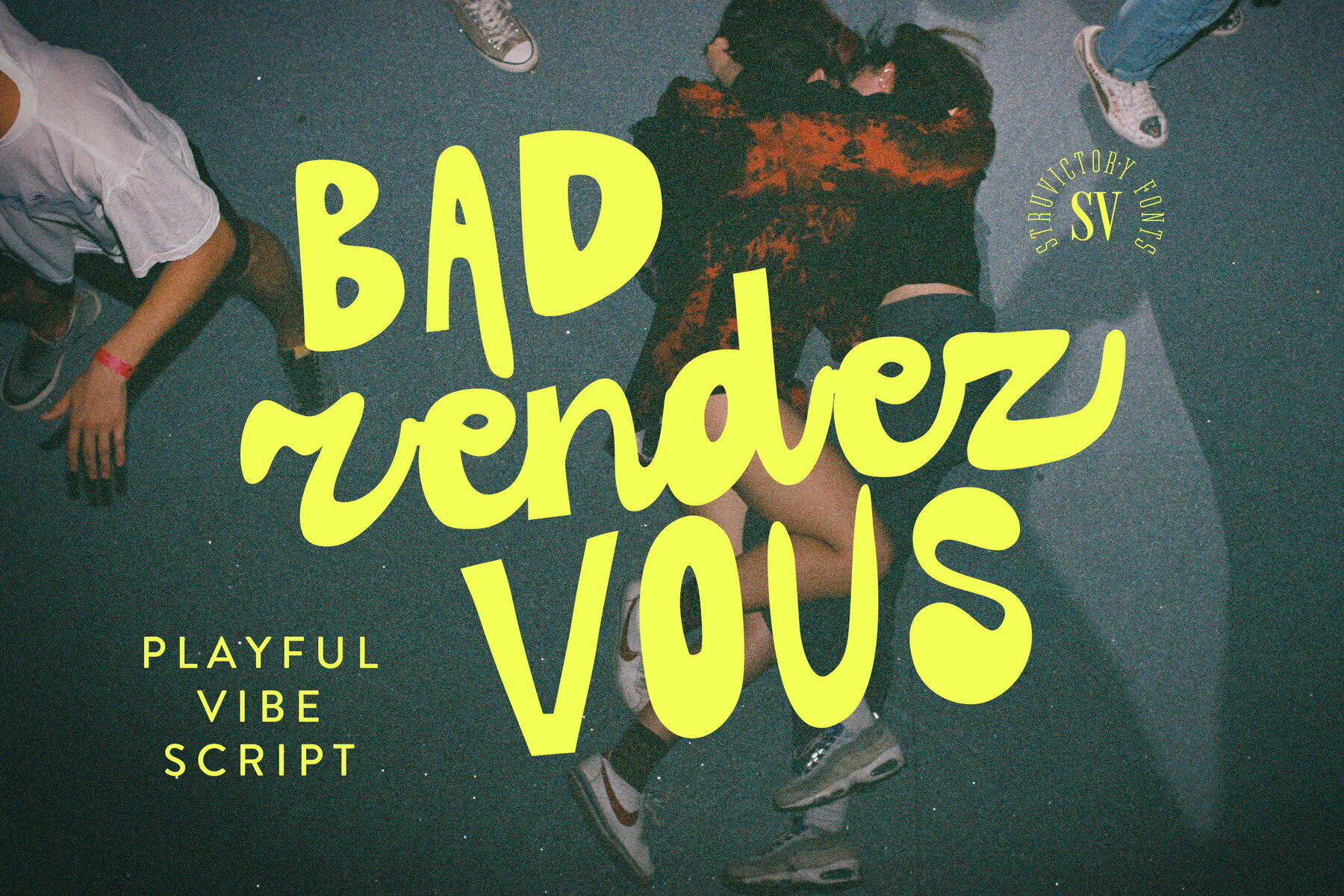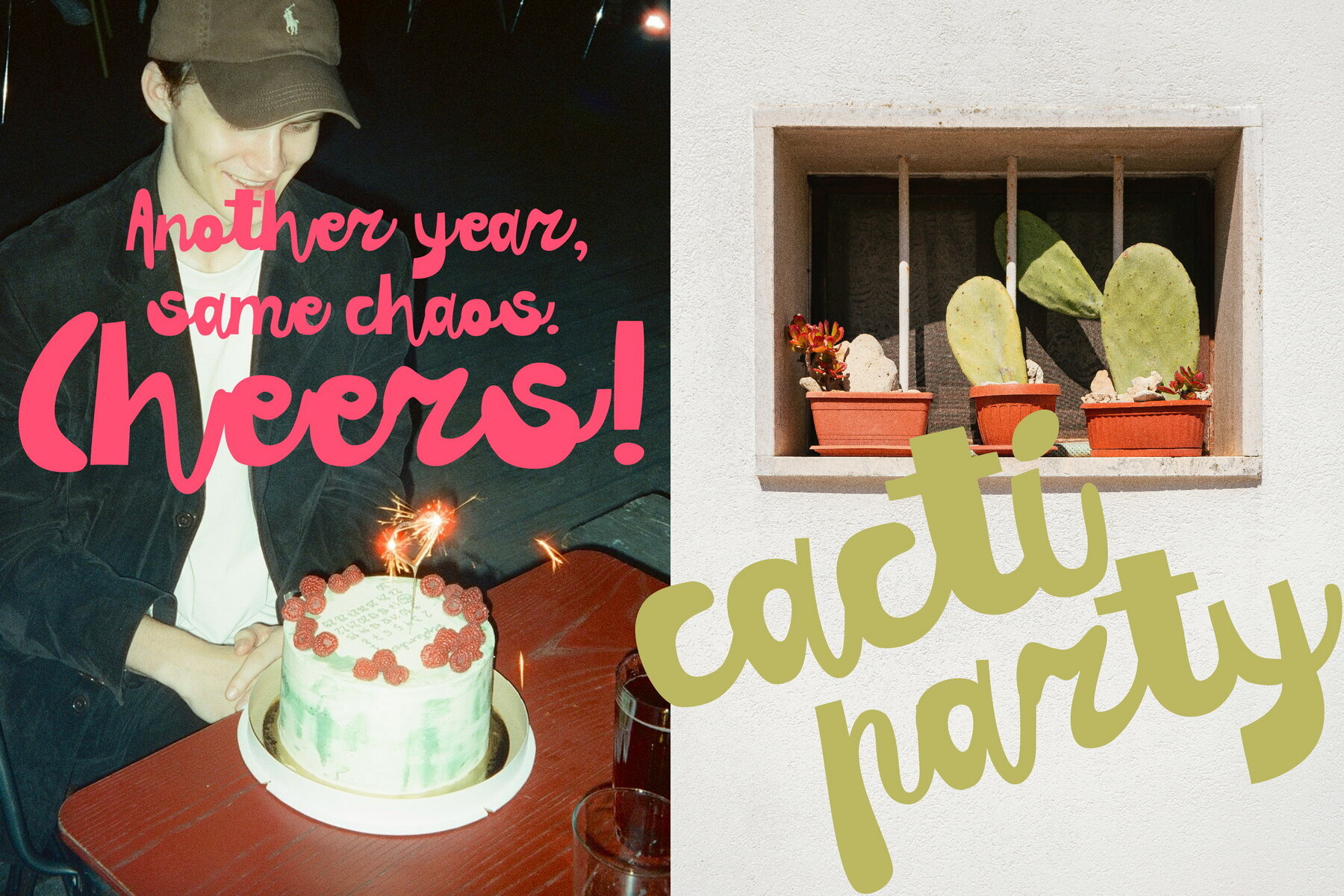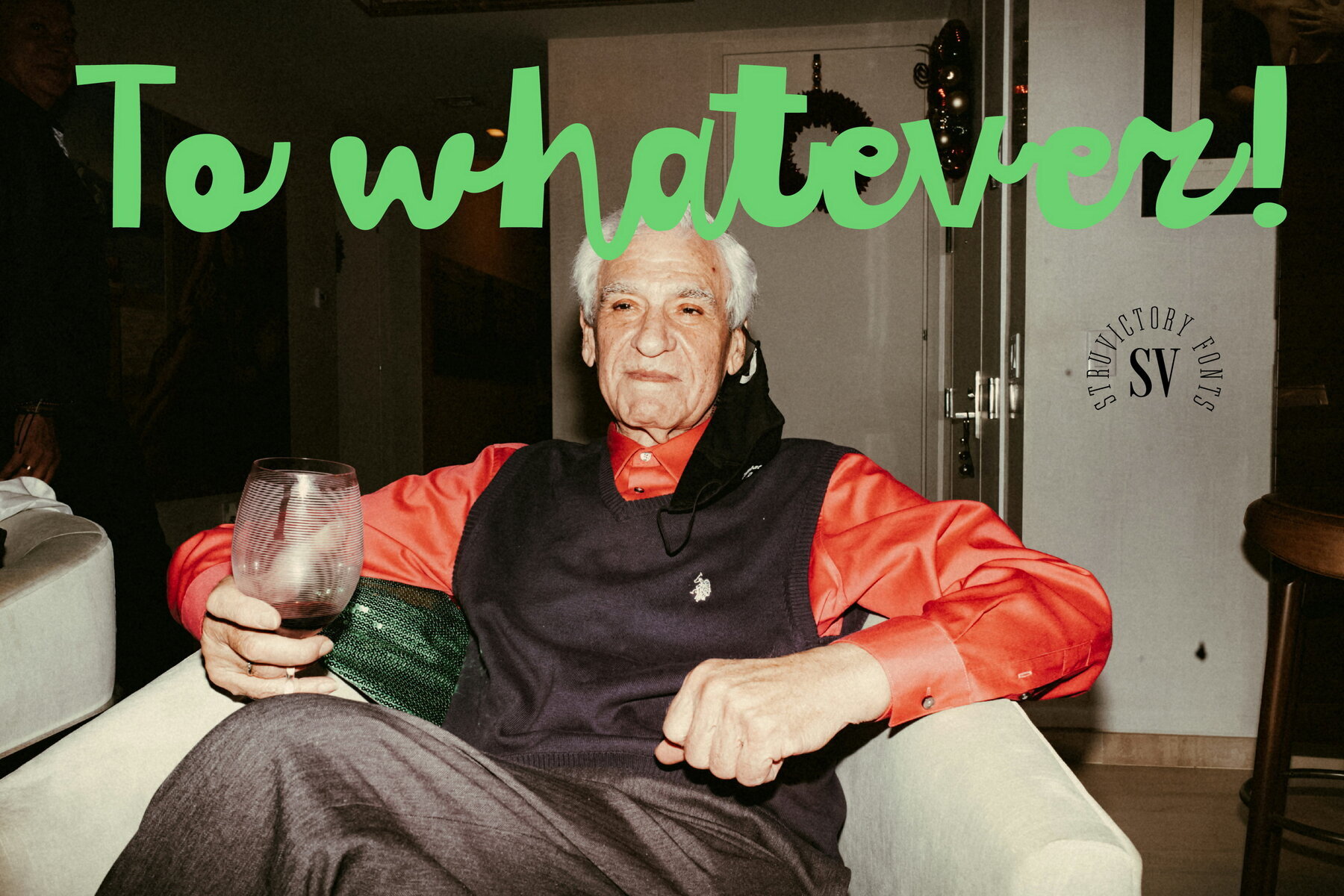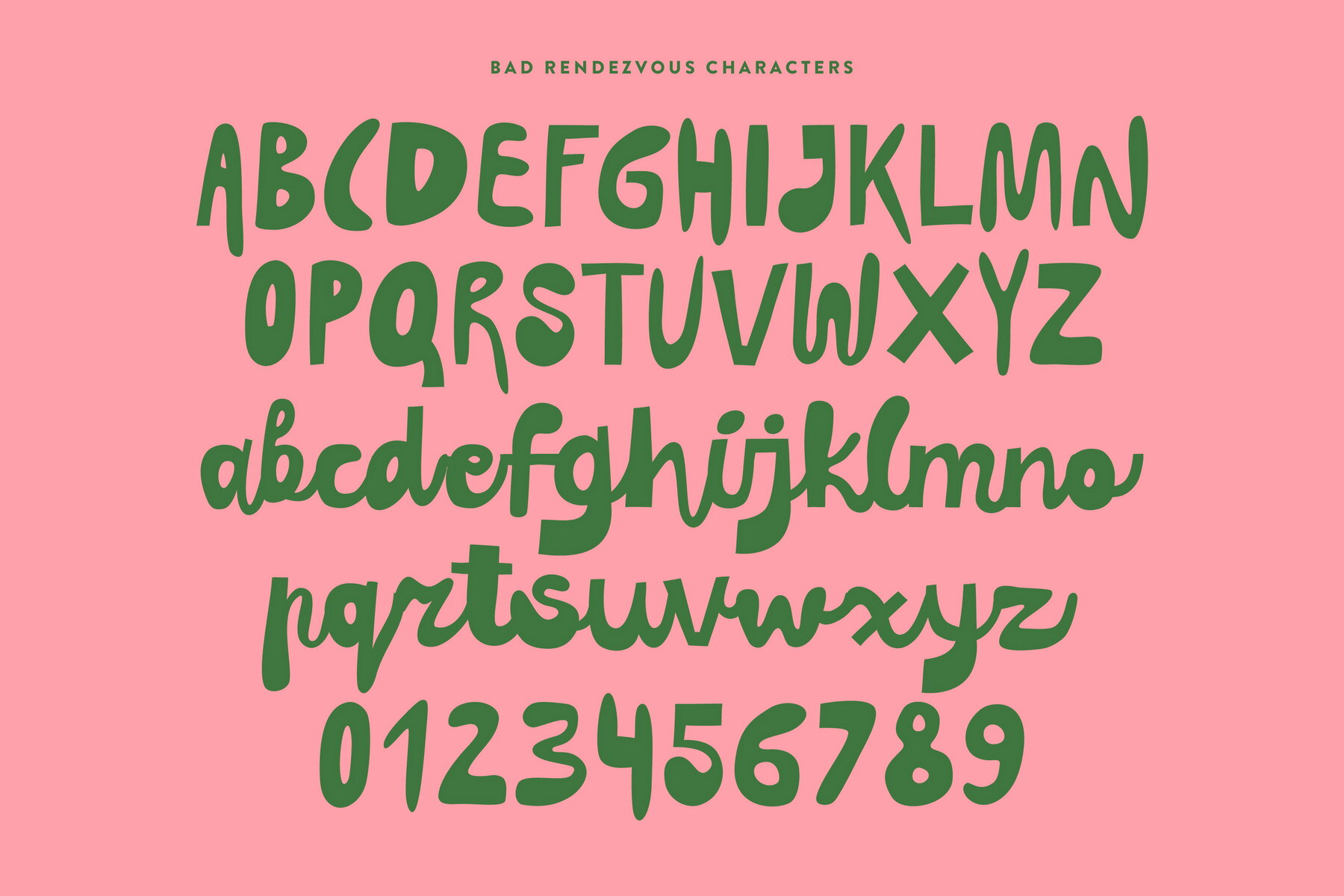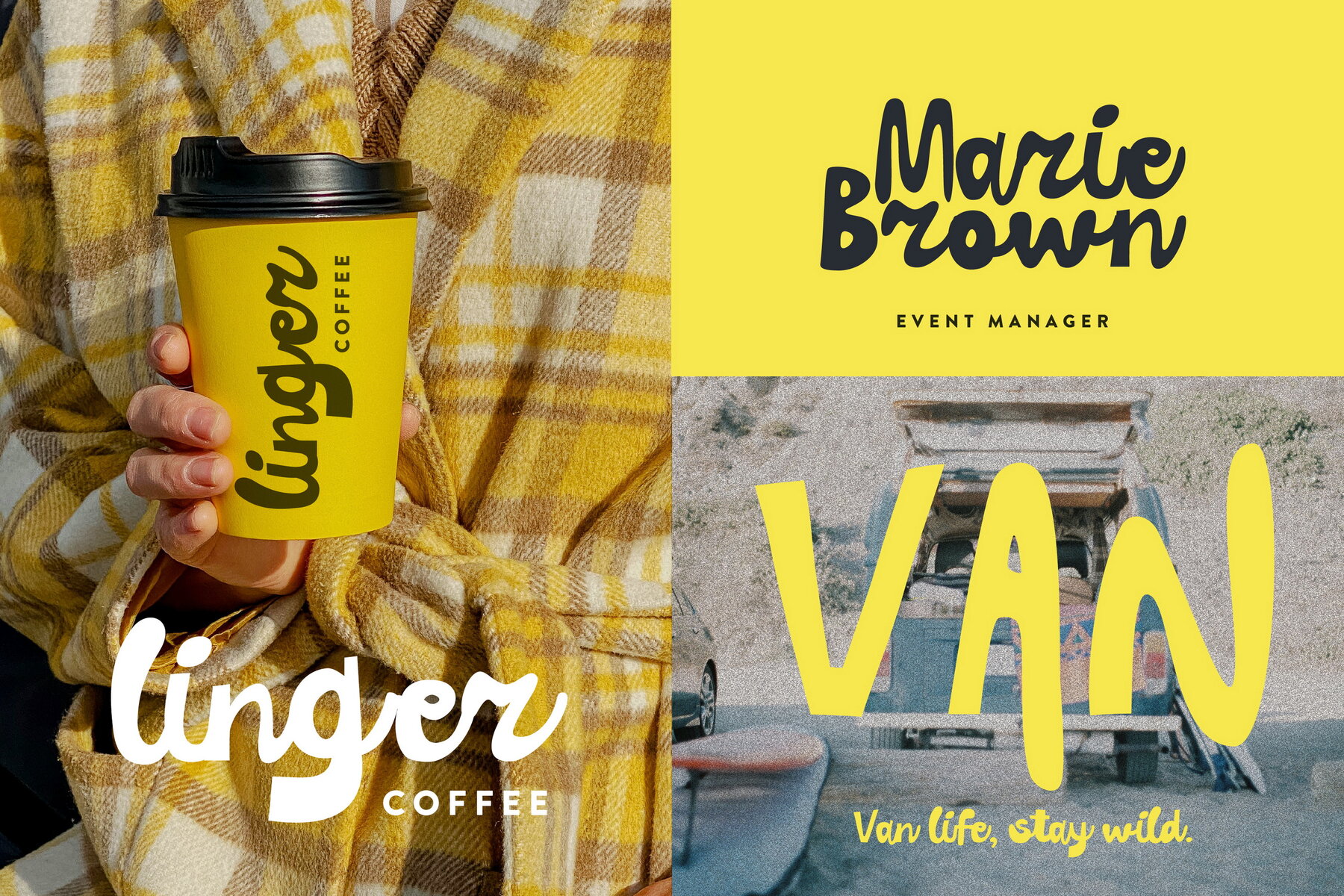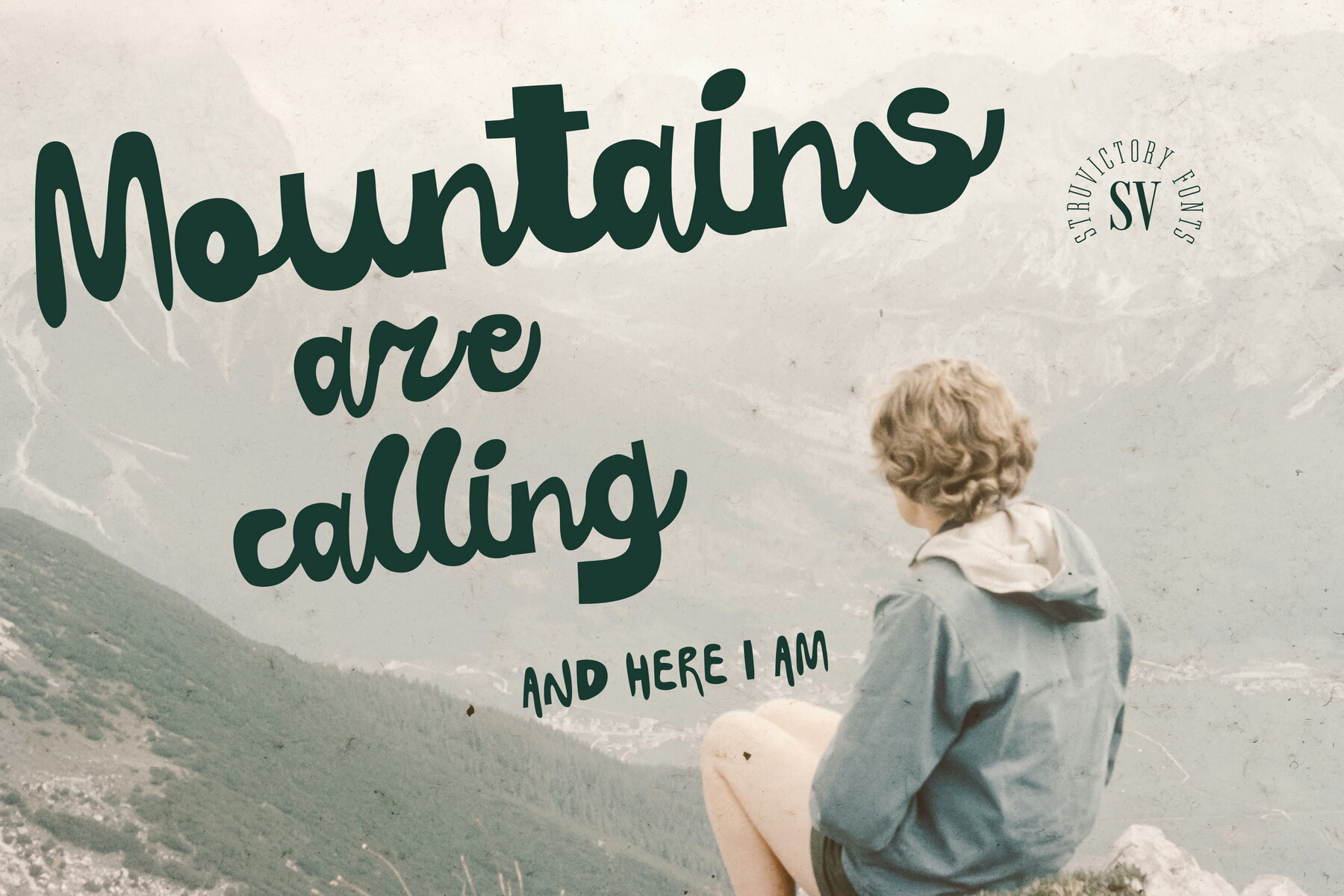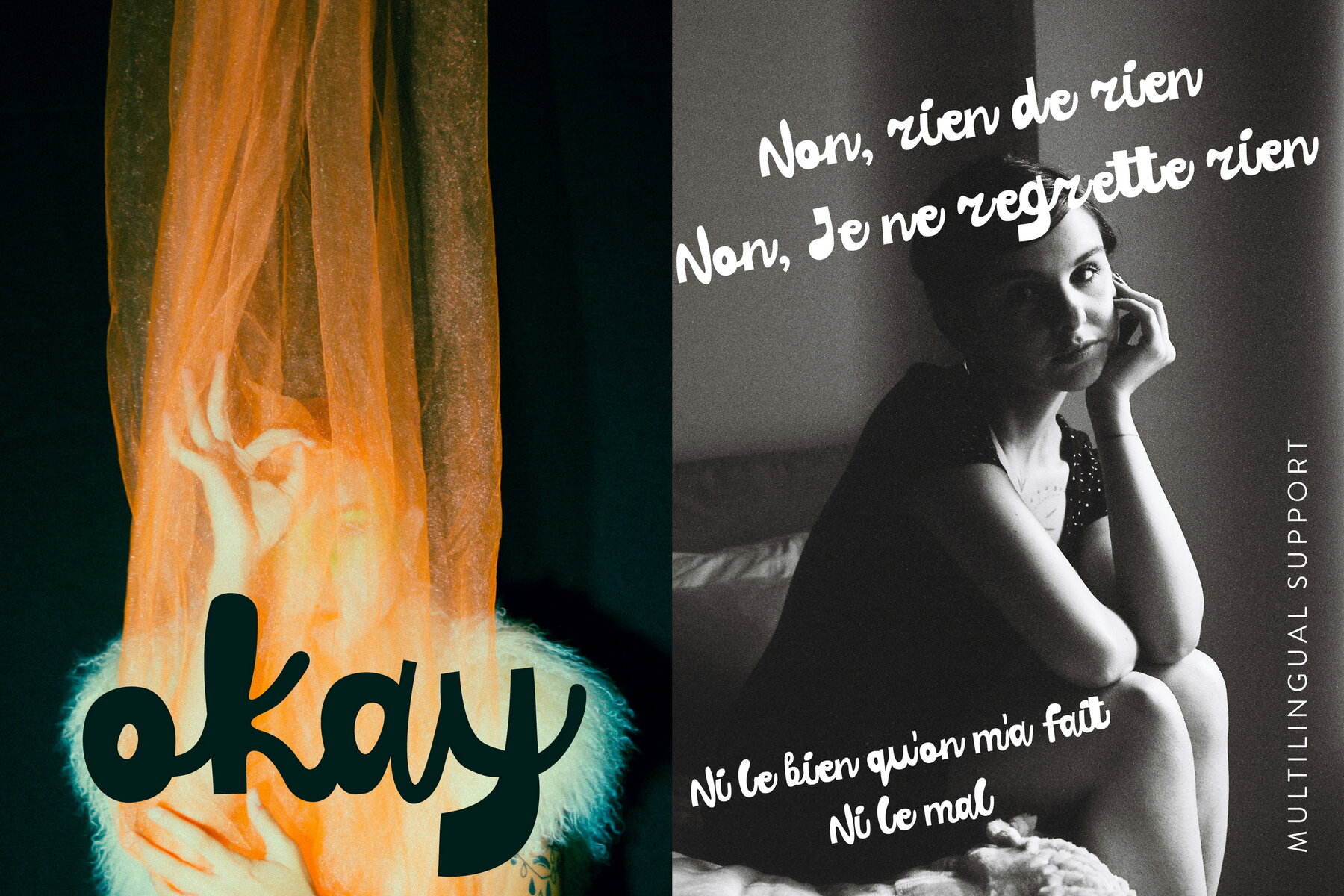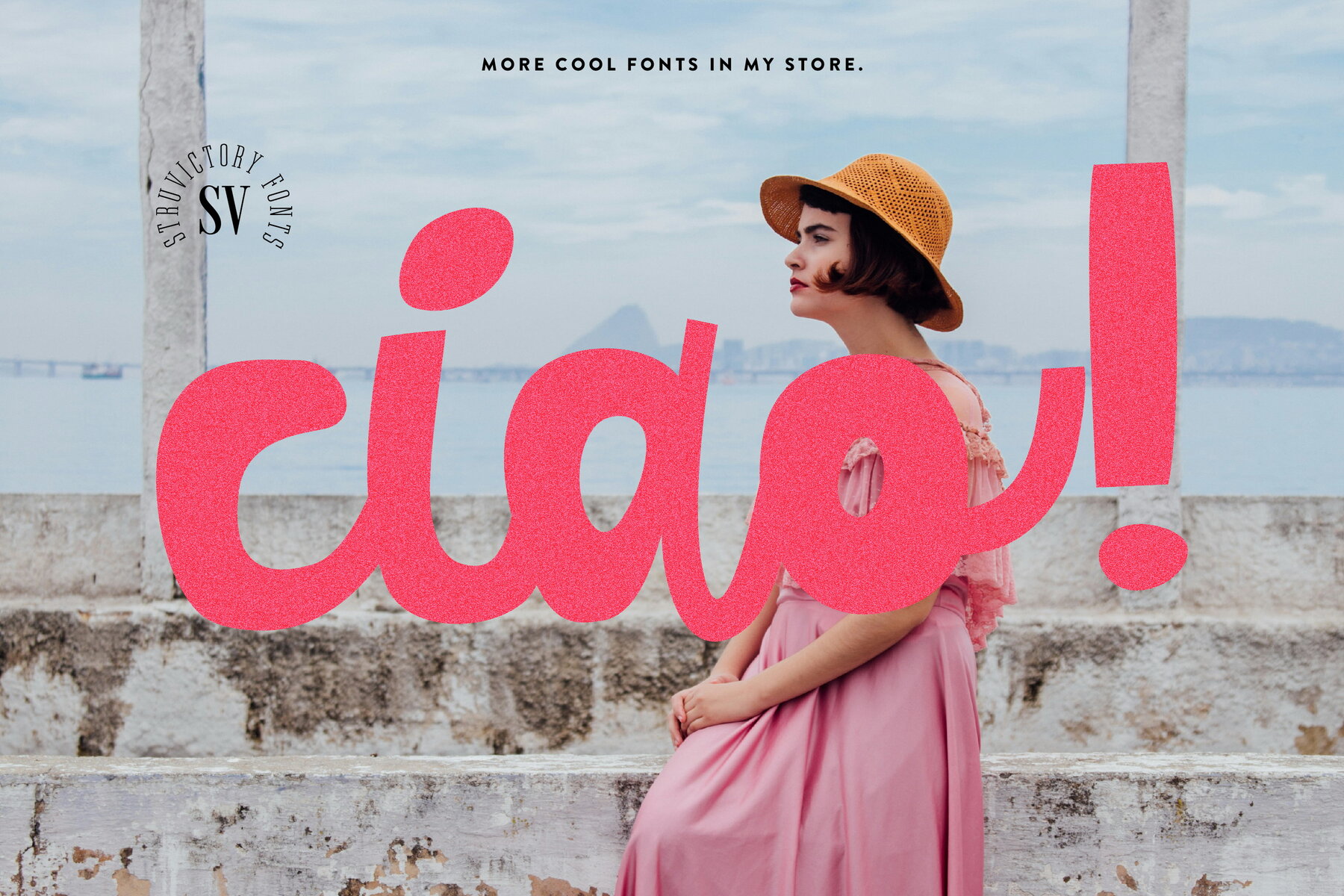
Bad Rendezvous Font
Bad Rendezvous Script
Bad Rendezvous is a font that rebelliously defies conventions with its uniquely expressive style. Imagine a note hastily scribbled on a napkin or a journal entry penned in the restless hours of the night—this font encapsulates such raw spontaneity. Its loose curves and relaxed strokes lend an effortless authenticity, making it an ideal choice for projects seeking artistic chaos. From trendy posters and album covers to vintage signage and coffee branding, Bad Rendezvous offers a stylish touch of beautiful disarray.Bad Rendezvous: Embrace Imperfection with Style